Prestige Font Bundle Vol 01
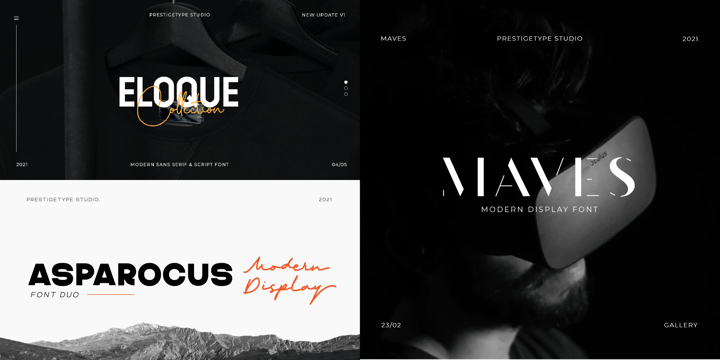
Tired of sifting through fonts that just don't make the cut? Say hello to our exclusive font bundle that's designed to elevate your designs and captivate your audience ✨
Discover 11 elegant, classy, and modern typefaces that consist of 46 fonts, carefully crafted to cater to your every creative need. From the sleek lines of Sans Serif to the timeless charm of Serif and the flowing grace of Script Fonts, this bundle has it all 🖋️